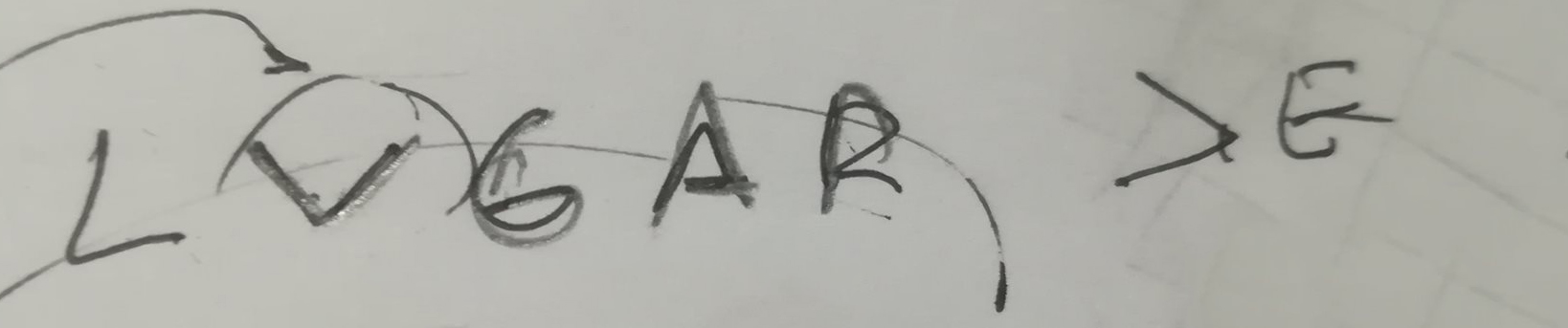
Hi. Can you help me to find a font similar to this one? I need the “U” to look like “V” and the letter “D” to look like an inverted triangle, just like this example.
That’s just very casual handwriting. It looks like pencil (gray lines) drawn over with a pen. Kinda hard to research. Rusticana has a few features like this (V-shaped U, D in the form of a delta).